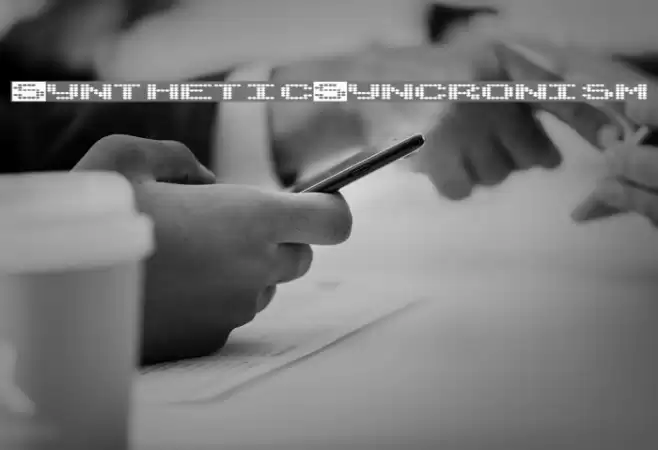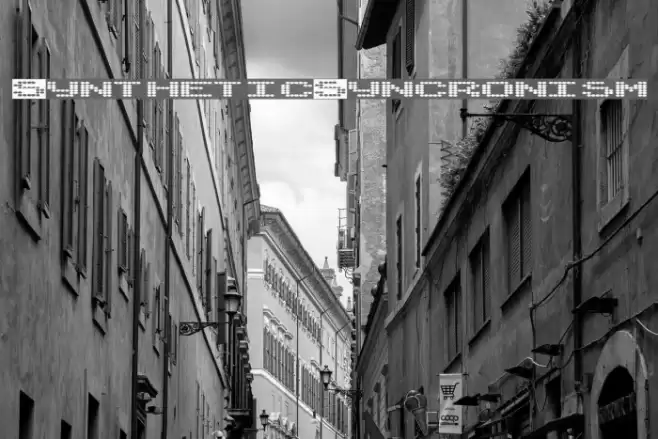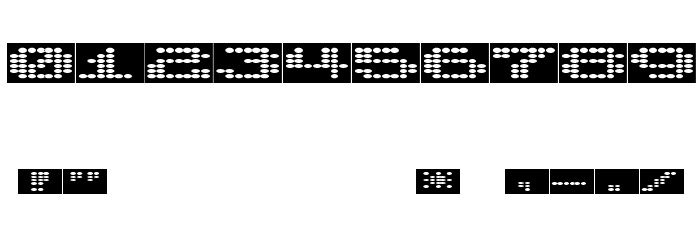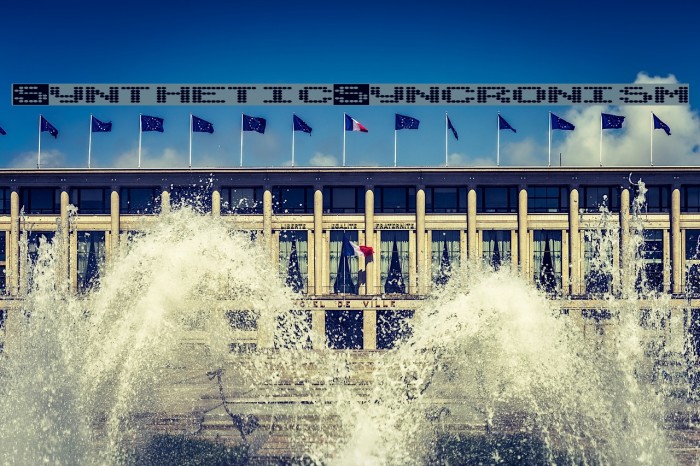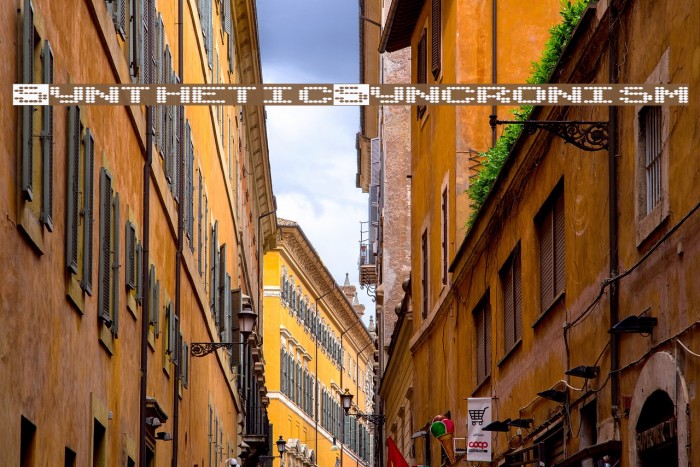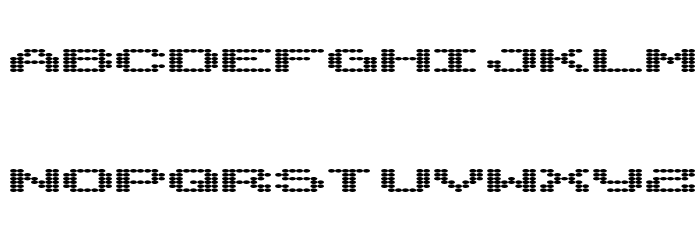
SyntheticSyncronism Font
SyntheticSyncronism Description
This font features a unique dot matrix style, reminiscent of digital displays and retro technology. Each character is constructed from a grid of dots, creating a pixelated effect that is both modern and nostalgic. The uppercase and lowercase letters maintain a consistent design, with clear differentiation between each character. Numbers and special characters follow the same dot pattern, ensuring uniformity across the font. The overall appearance is bold and eye-catching, making it suitable for projects that require a digital or futuristic aesthetic.
A dot matrix style font with a digital, retro feel from Decorative fonts.
- Proposed Projects: Ideal for digital displays, retro-themed designs, tech branding, and futuristic posters.
- Use Case: Headlines, Logos, Digital Displays